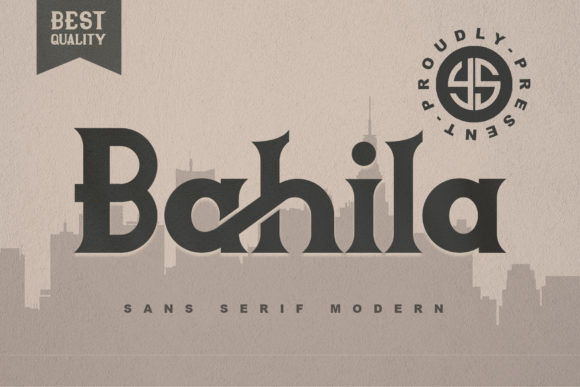
Bahila Font
Unveil the captivating charm of Bahila, a modern serif masterpiece that will elevate your designs to new heights. Inspired by the festive spirit of Christmas, this font exudes an aura of joy and warmth that will leave a lasting impression.
Crafted by the renowned YanStudio, Bahila embodies the essence of elegance and sophistication. Its bold strokes and sharp serifs create a striking visual appeal that demands attention. Imagine the impact of your posters and flyers adorned with this extraordinary font, captivating your audience with its timeless allure.
With Bahila, the possibilities are endless. Its versatility extends far beyond Christmas greetings, seamlessly adapting to a multitude of design endeavors. Unleash your creativity and watch as this font transforms your projects with its captivating charm.
Indulge in the festive ambiance that Bahila brings to your designs, spreading joy and wonder with every letter. Let its bold presence captivate your audience, leaving an unforgettable mark on their hearts and minds. Experience the transformative power of Bahila today and ignite the spirit of Christmas in your creations.